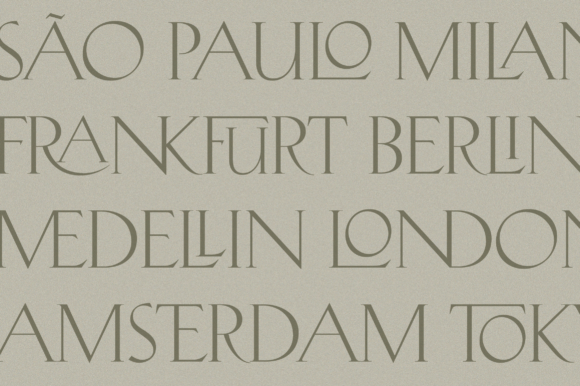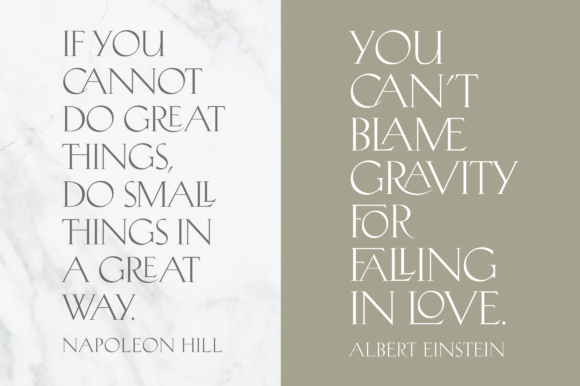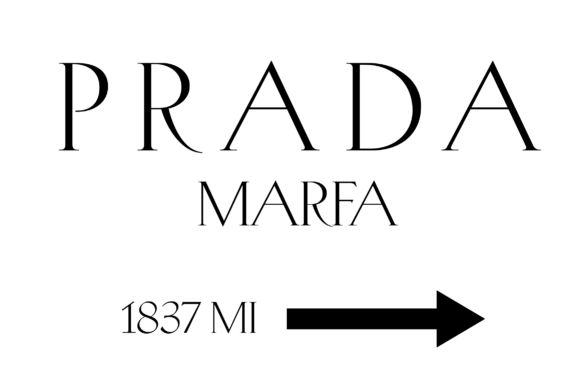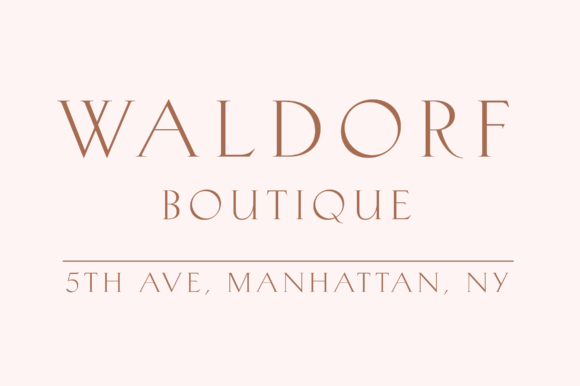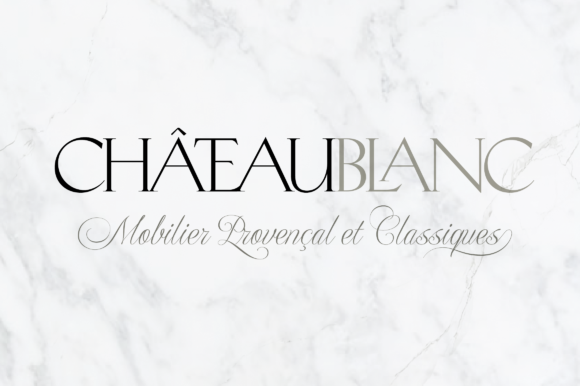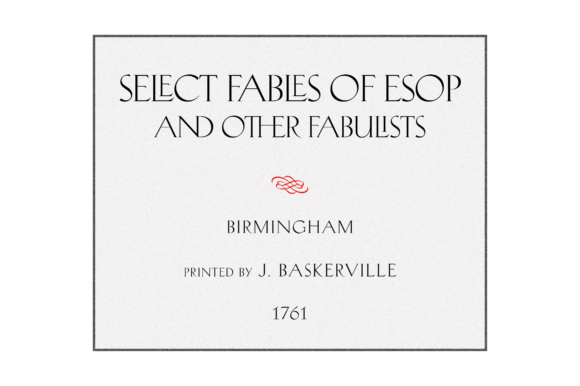
Introducing Giovanna Font: Elevate Your Design with Classic Elegance
Are you searching for a font that exudes sophistication and refinement? Look no further than Giovanna Font, a stunning all-caps serif font that embodies classic elegance with a majestic feel. This beautiful font is designed to add a touch of luxury and coolness to any design project, making it perfect for designers and crafters seeking to create visually striking and high-end visuals.
The Characteristics of Giovanna Font
Giovanna Font boasts a range of characteristics that make it an exceptional choice for designers. As an all-caps serif font, it features elegant serifs that add a level of sophistication and refinement to any text. The font’s classic design ensures that it remains timeless, never going out of style, while its majestic feel gives it an air of grandeur and luxury.
Key Features of Giovanna Font
- Classic and Elegant Design: Giovanna Font features a traditional serif design with a classic feel that works well for both print and digital applications.
- All-Caps Format: The font’s all-caps format gives it a strong and confident appearance, making it perfect for headlines, titles, and other display text.
- Majestic Feel: The font’s majestic feel adds a touch of luxury and sophistication to any design, making it ideal for high-end branding and marketing materials.
- Versatility: Giovanna Font can be used for a wide range of design projects, from logos and branding to packaging, posters, and more.
Why Choose Giovanna Font?
There are many reasons why Giovanna Font stands out from the crowd. Here are just a few:
- Timeless Design: Giovanna Font’s classic design ensures that it will remain relevant for years to come, making it a great investment for designers and crafters.
- Elegant and Sophisticated: The font’s elegant and sophisticated design makes it perfect for high-end branding and marketing materials.
- Easy to Read: Despite its elegant design, Giovanna Font remains easy to read, even at smaller sizes.
- Highly Versatile: The font can be used for a wide range of design projects, from print to digital applications.
How to Use Giovanna Font in Your Design Projects
Giovanna Font is incredibly easy to use and can be incorporated into a wide range of design projects. Here are a few ideas to get you started:
- Logos and Branding: Use Giovanna Font to create a sophisticated and elegant logo that reflects your brand’s values and personality.
- Posters and Flyers: Add a touch of luxury to your posters and flyers with Giovanna Font, perfect for promoting events, products, or services.
- Packaging Design: Use Giovanna Font to create eye-catching packaging that stands out on store shelves.
- Digital Applications: Giovanna Font works well for digital applications, including website headers, social media graphics, and more.
In conclusion, Giovanna Font is a classic and elegant all-caps serif font that is sure to elevate any design project. With its timeless design, majestic feel, and versatility, it’s the perfect choice for designers and crafters seeking to create high-end visuals. Whether you’re working on a logo, poster, packaging design, or digital application, Giovanna Font is an excellent choice. So why wait? Download Giovanna Font today and add a touch of elegance and sophistication to your design projects!